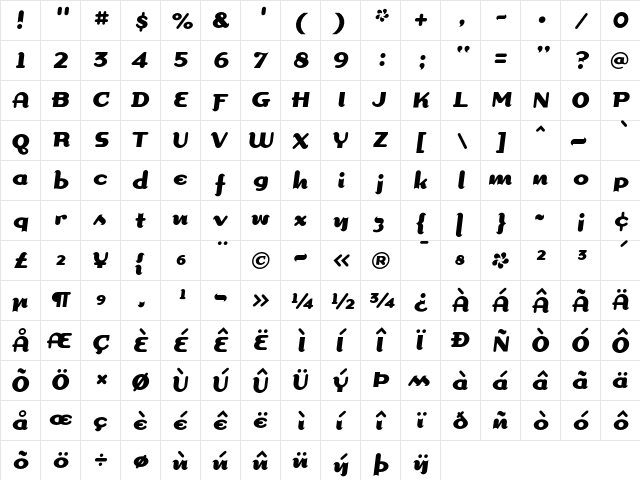
Dogma ScriptBold Font Preview
Dogma ScriptBold
Design Context for Dogma Typeface
Dogma flows with the natural rhythm of handwritten lettering, making it ideal for designs that call for warmth and personal expression. Its bold stroke weight gives it real presence on the page.
Font Pairing: Combine Dogma with a simple geometric sans for maximum contrast — the tension between flowing curves and clean structure is a classic typographic pairing.
Pro Tip: Use Dogma for short runs of text — names, titles, or taglines. Extended body copy in script faces tires the eye quickly.